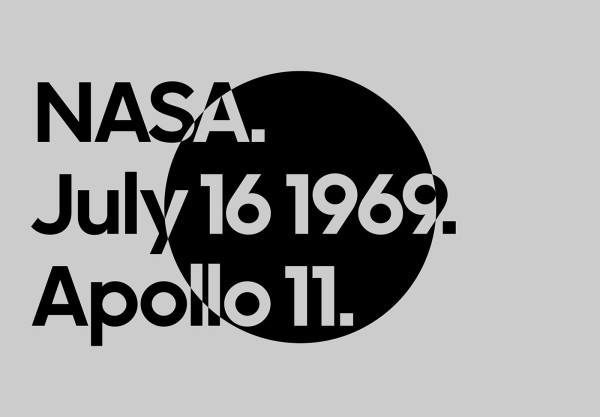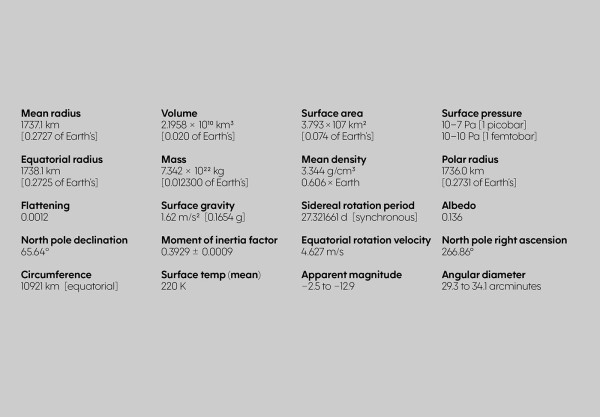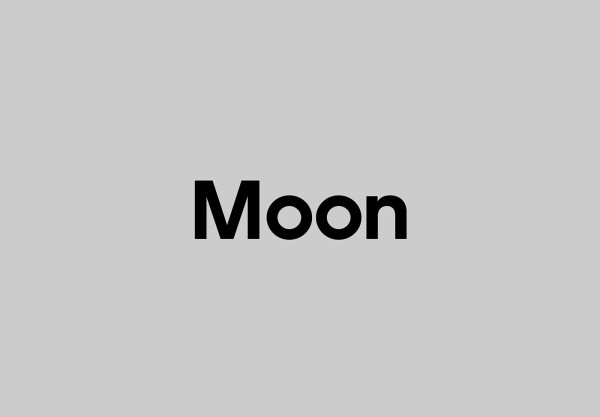
F37 Moon Font, a simple and sans serif font. So perfect for you who needs a typeface for logo designs, magazine, social media, brochure, and many more.
| Designer Name: | F37® Foundry |
| Classification: | Sans Serif Fonts, Style / Aesthetic Fonts |